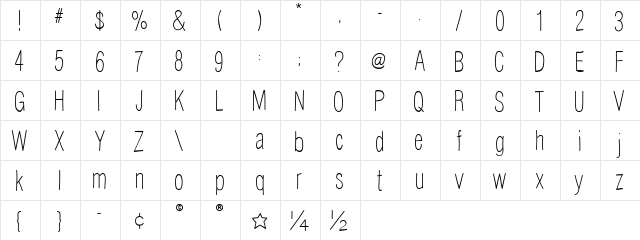
MummCardHelvetica Regular
Design Context for MummCardHelvetica Typeface
MummCardHelvetica is a composed and adaptable typeface that performs quietly and consistently across a wide range of design contexts.